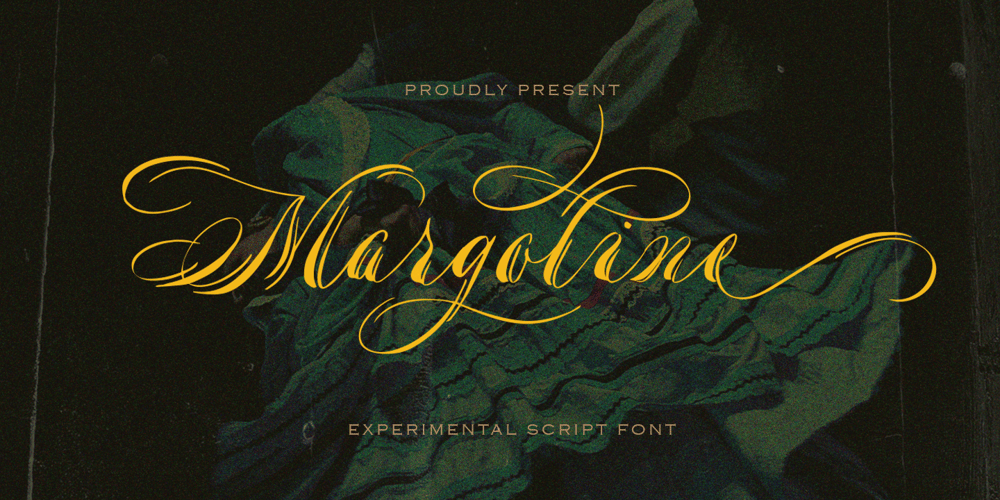
Margoline Font Family was designed by Hendry Juanda and published by Letterhend. Margoline contains 1 styles and family package options. Introducing, Margoline script font. Margoline is a swash handwritten font that is perfect for branding, packaging, wedding invitation, card, etc.Features : uppercase & lowercase numbers and punctuation multilingual alternates and ligatures swash PUA encoded We highly recommend using a program that supports OpenType features and Glyphs panels like many of Adobe apps and Corel Draw, so you can see and access all Glyph variations.